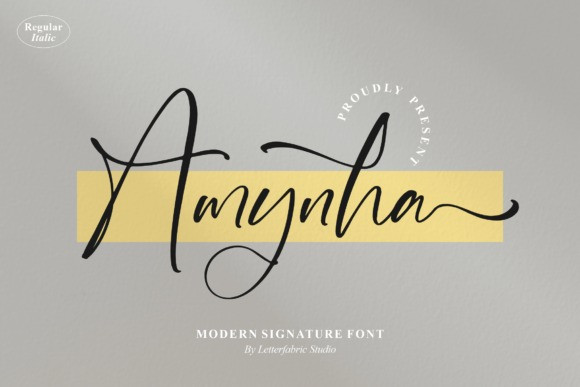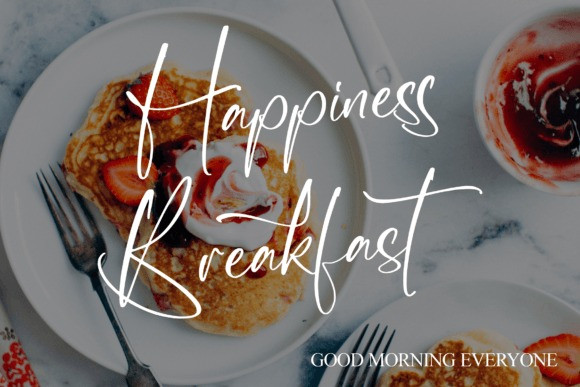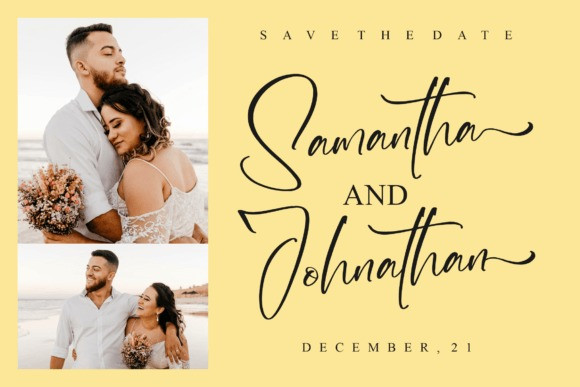
Amynha Font
Amynha – Modern Signature Font suitable for any projects such as logos, branding projects, homeware designs, product packaging, mugs, quotes, posters, shopping bags, t-shirts, book covers, name cards, invitation cards, greeting cards, labels, photography, watermark, special events, and all your other lovely projects that need a beautiful script taste.